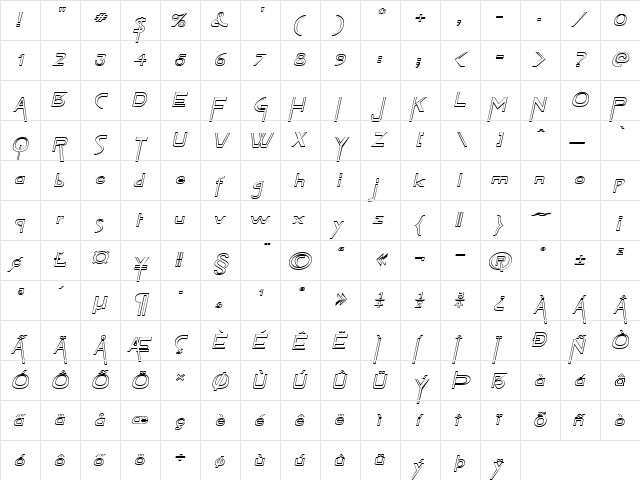
TabletHollowExtended Italic Font Preview
TabletHollowExtended Italic
Design Context for TabletHollowExtended Typeface
TabletHollowExtended takes a measured approach to typography — its balanced proportions and neutral character make it a reliable workhorse for both digital and print work. The slanted form adds forward momentum and visual energy.
Pro Tip: Try TabletHollowExtended for annotation and caption copy alongside an upright companion — the contrast in angle creates a dynamic but ordered typographic system.